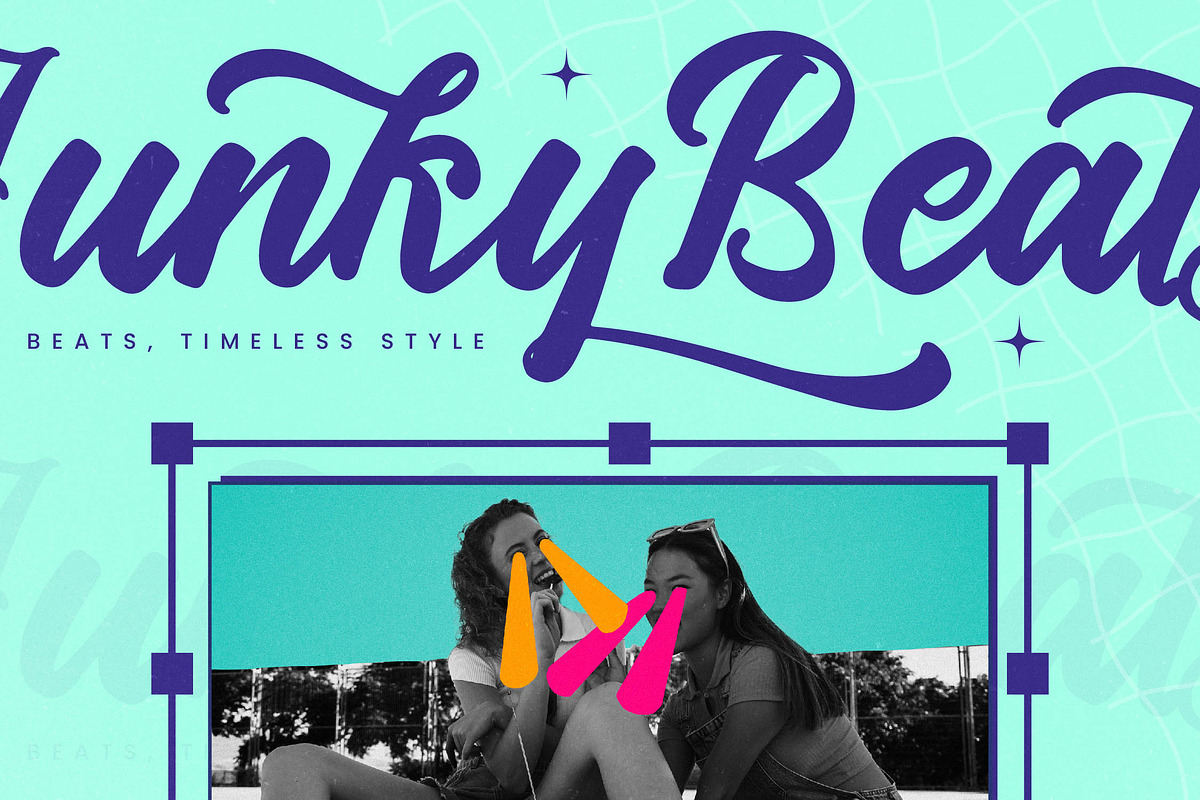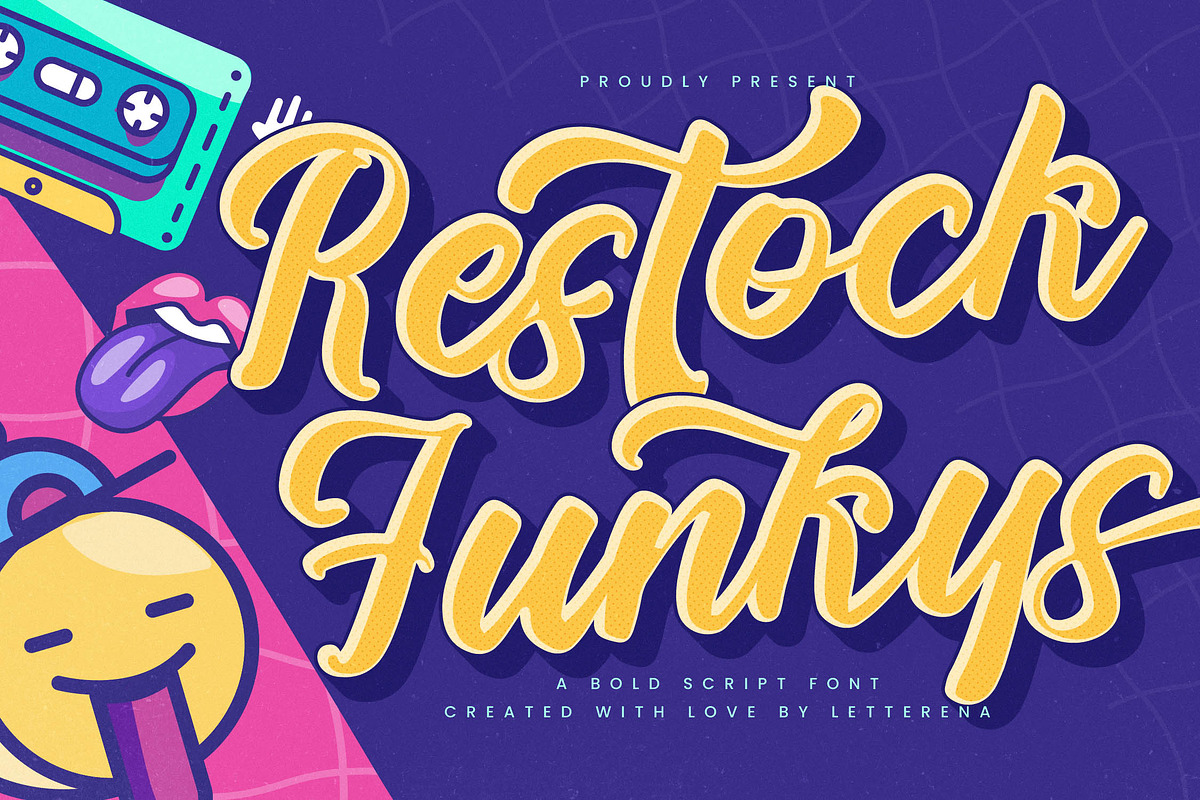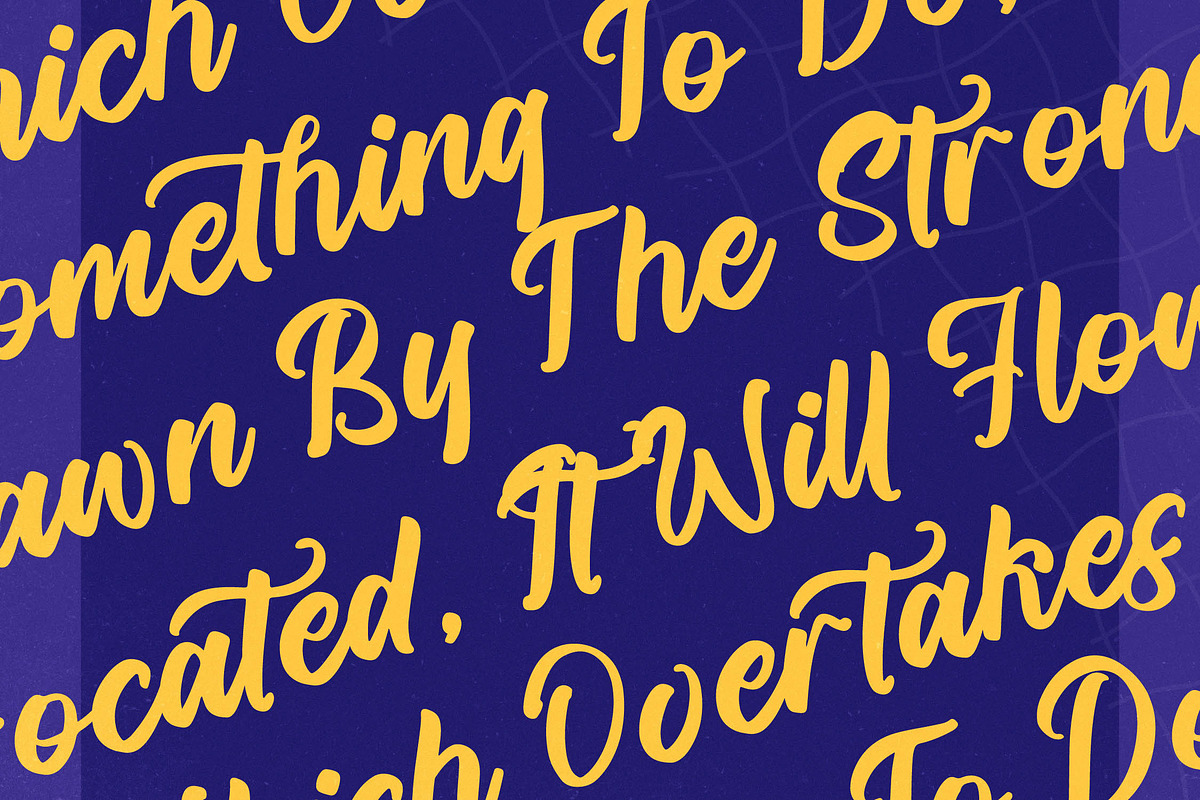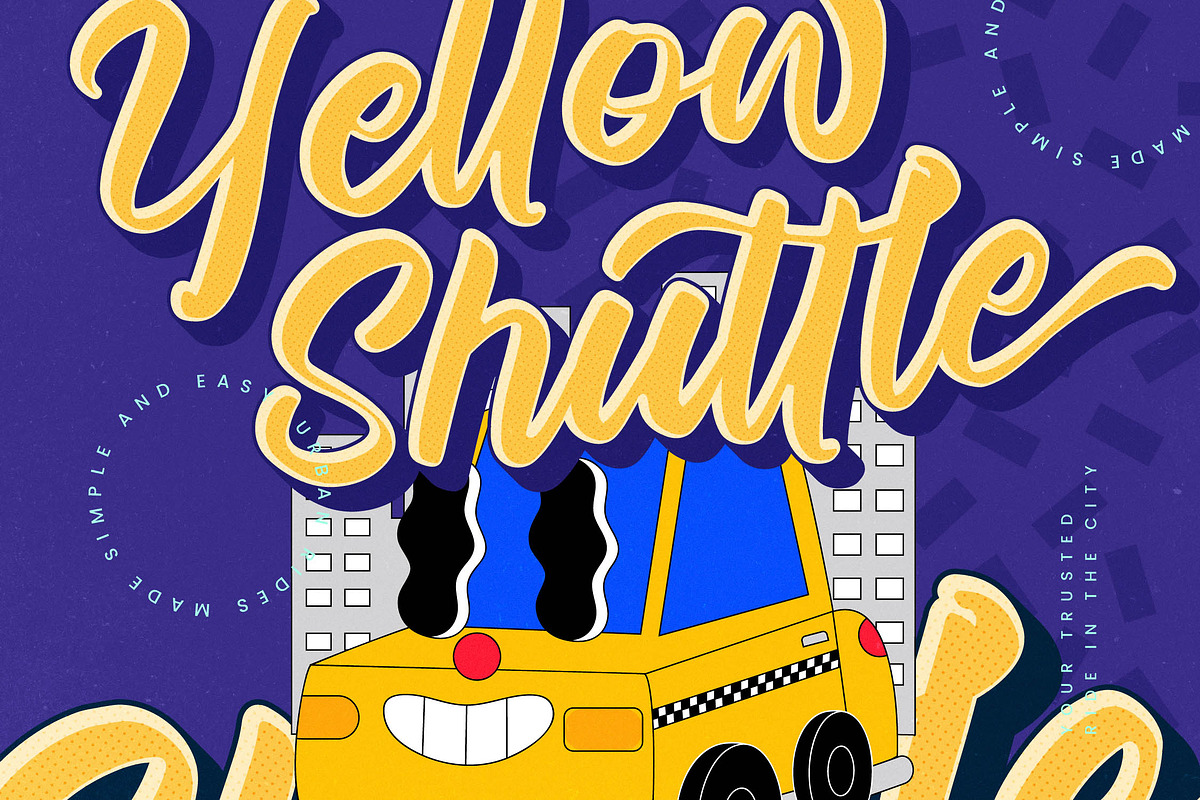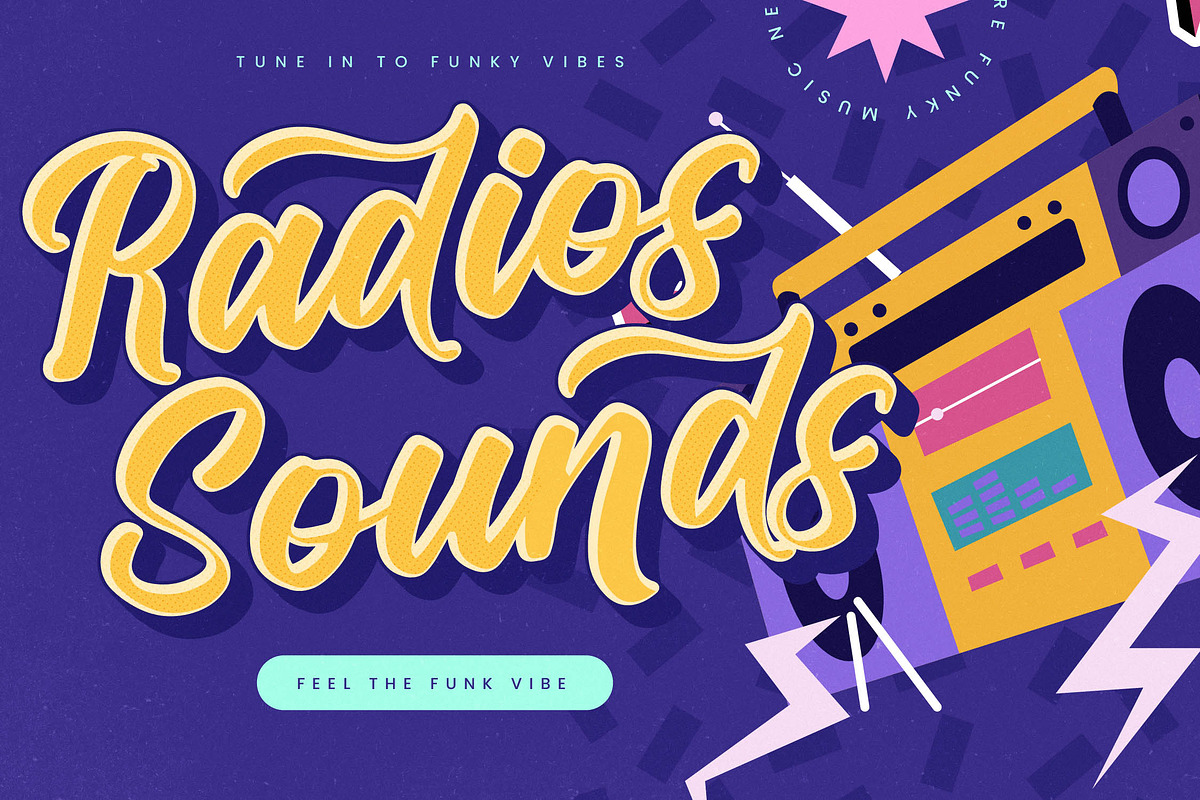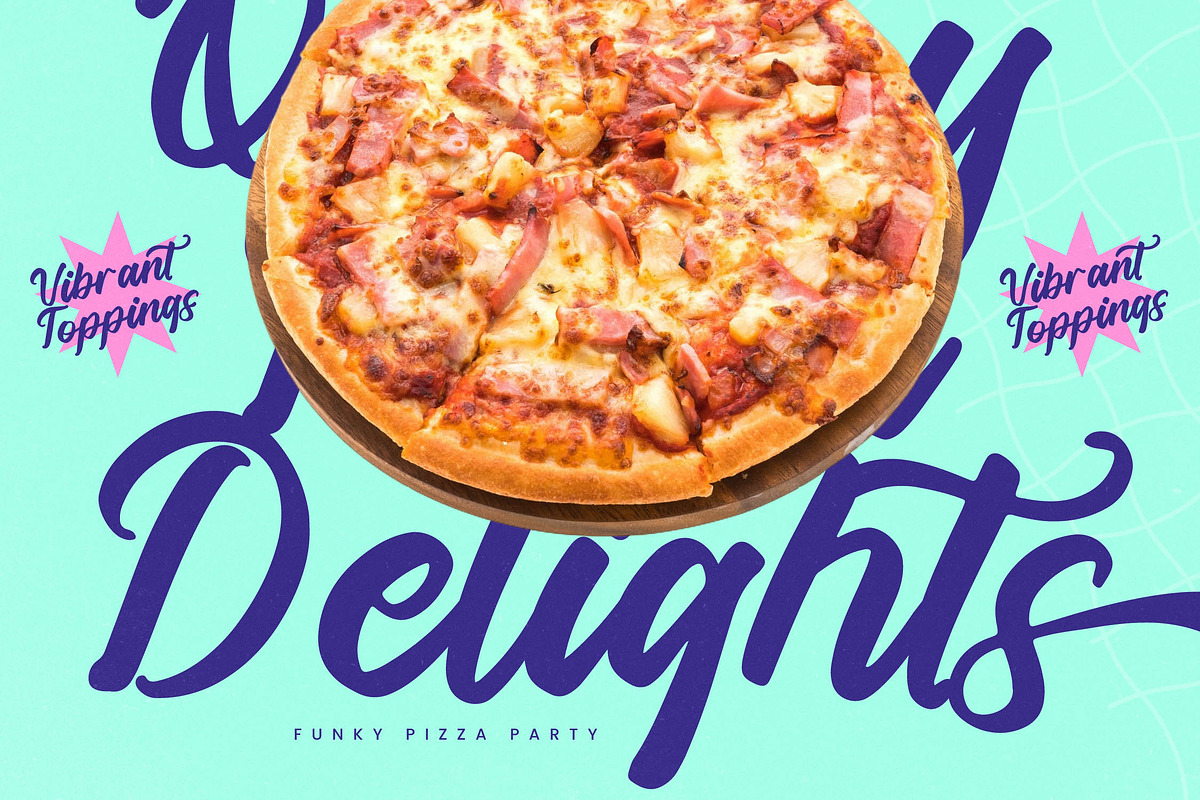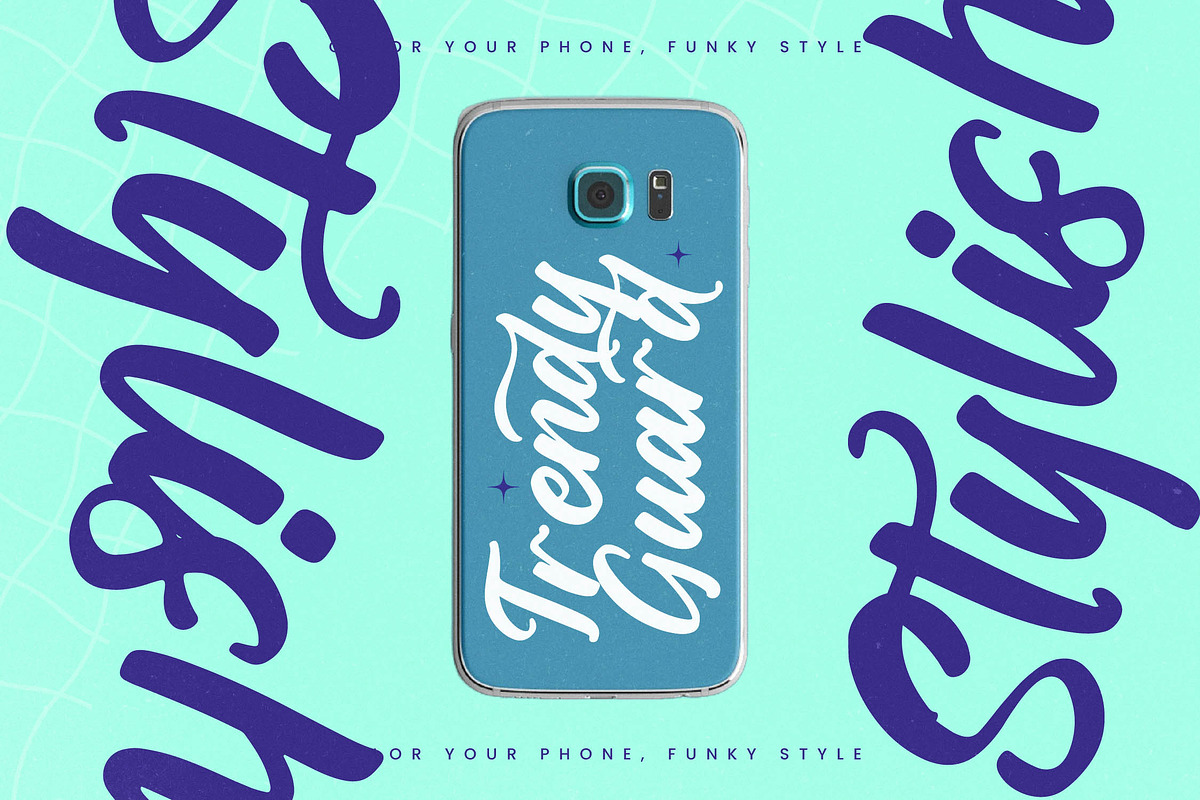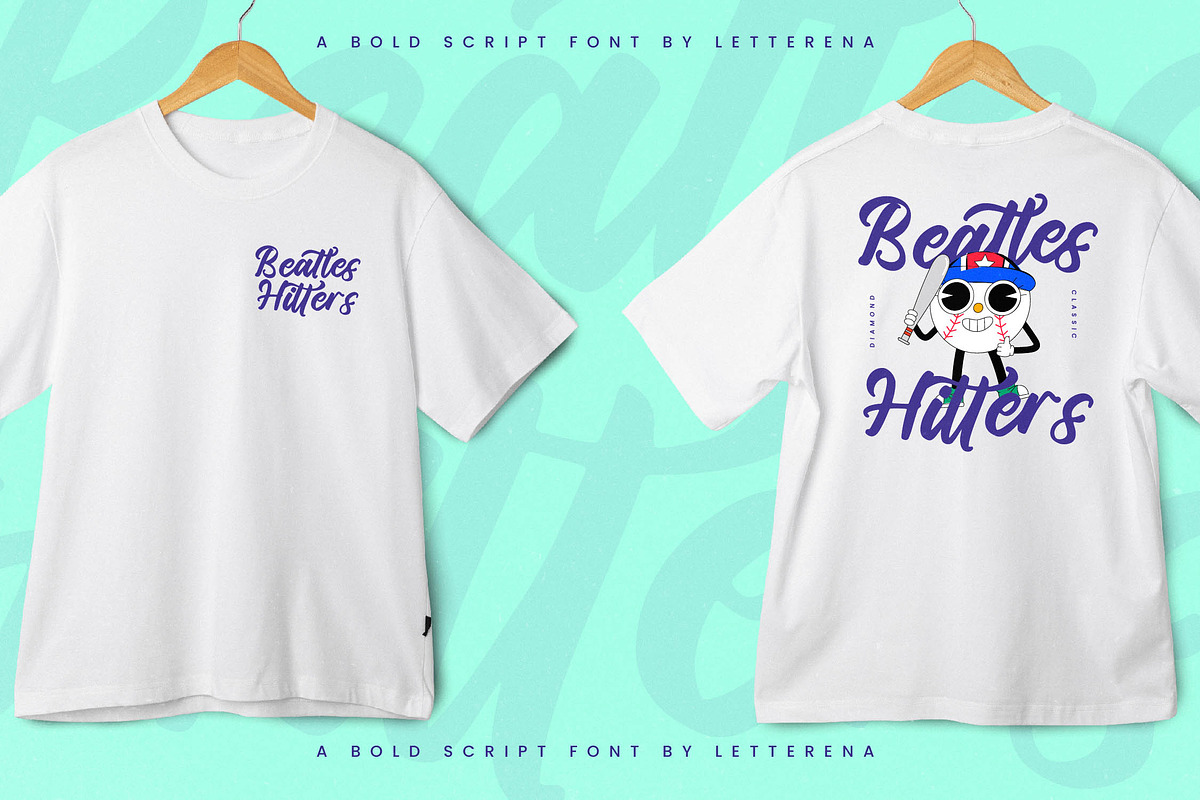
Restock Funkys Bold Script Font
Restock Funkys – Bold Script Font , from Letterena, is a Luxury Script font, suitable for any projects such as: logos, branding projects, homeware designs, product packaging, mugs, quotes, posters, shopping bags, t-shirts, book covers, name card, invitation cards, greeting cards, label, photography, watermark, special events, and all your other luxury and beautiful projects that need a Luxury Script taste.
Uppercase and Lowercase
Ligatures and Alternative Style Stylistic Set
Why Restock Funkys Bold Script Font is worth a look
Restock Funkys Bold Script Font by Letterena Studios Script fits naturally into Branding, posters, packaging, typography.